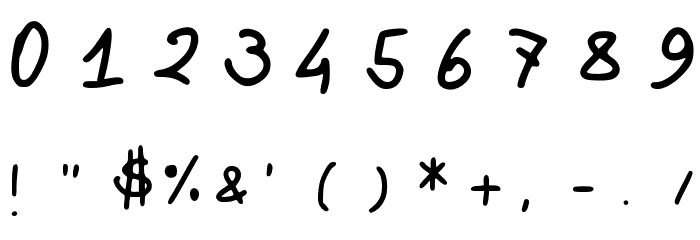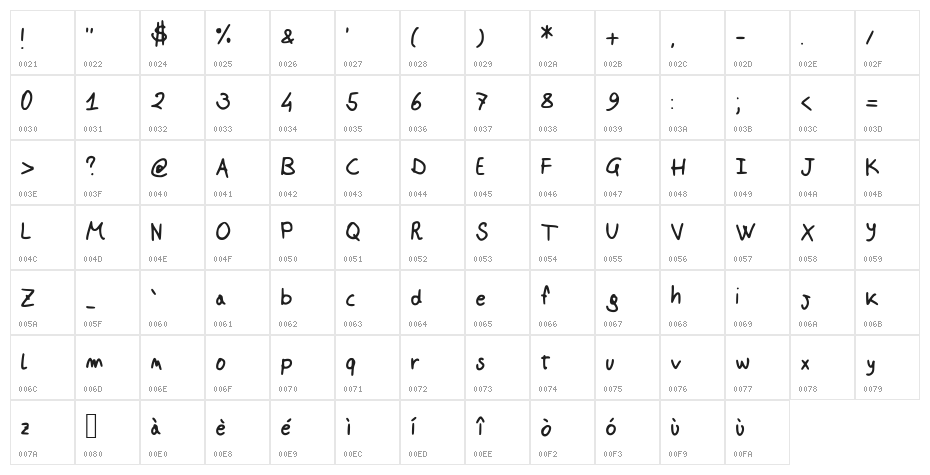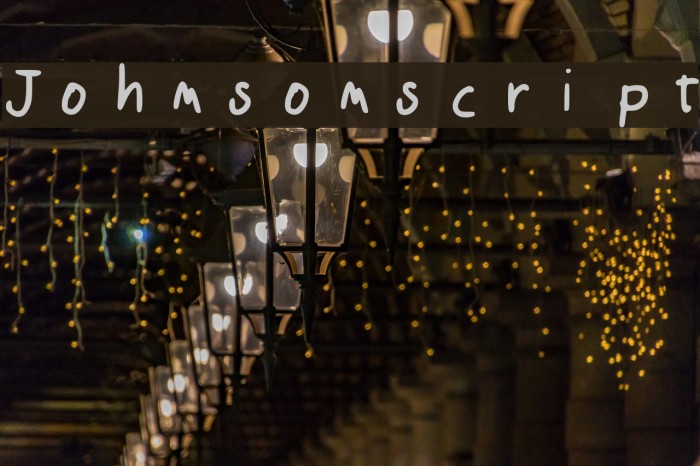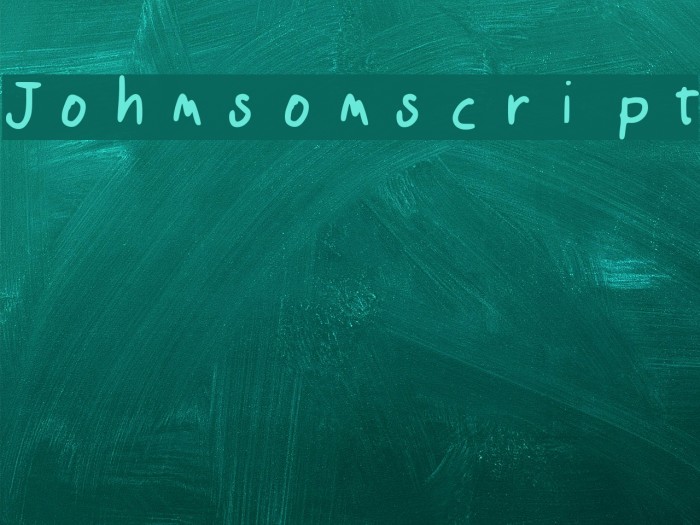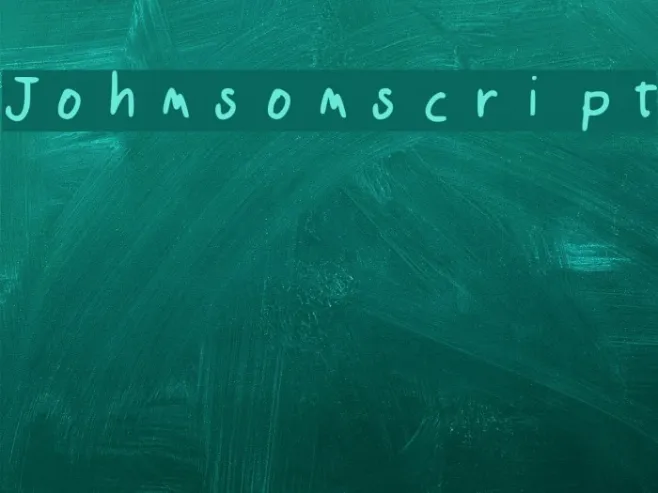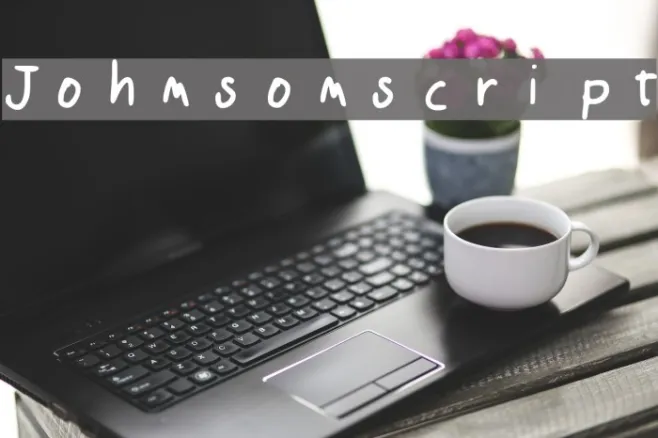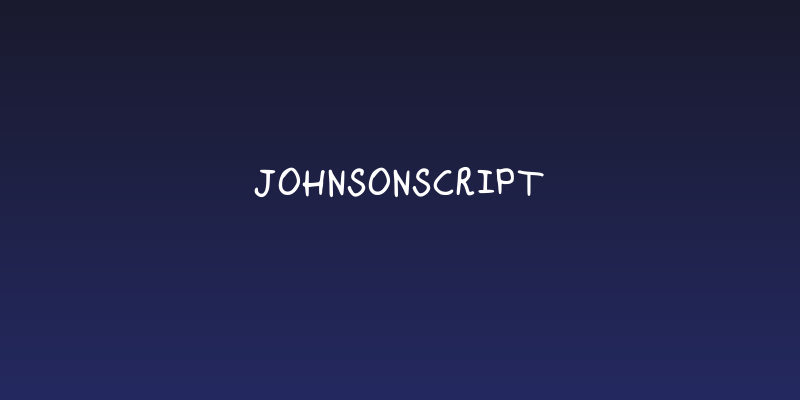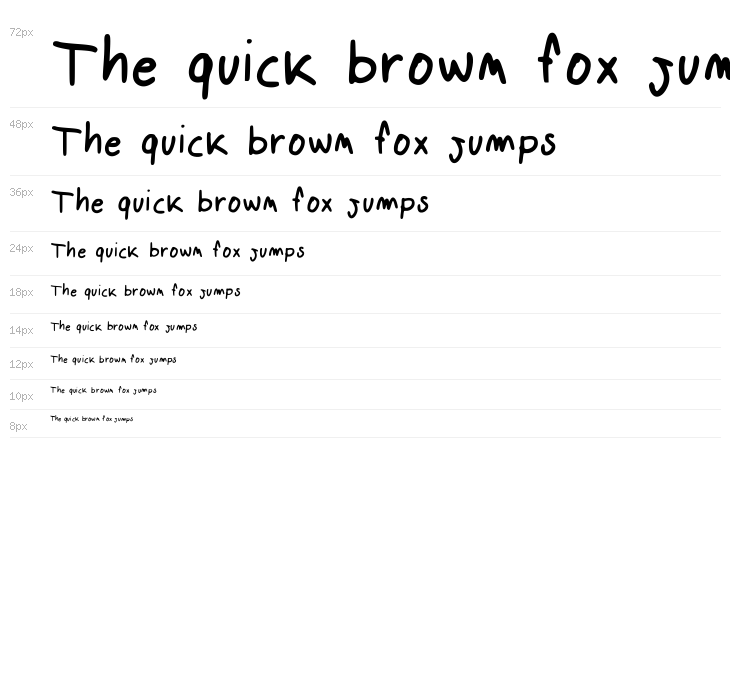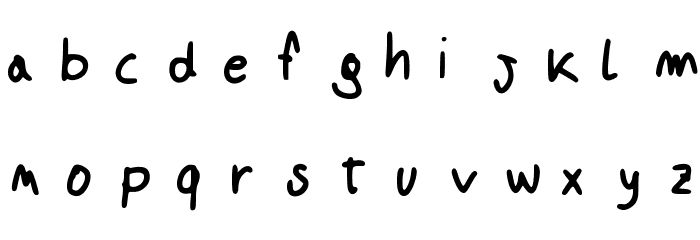
Johnsonscript Font
Johnsonscript Description
This font exudes a playful and casual handwritten style, characterized by its irregular strokes and organic flow. The letters have a natural, slightly uneven baseline, giving them a personal and approachable feel. The uppercase and lowercase letters maintain a consistent style, with rounded edges and a slight tilt that enhances the handwritten effect. Numbers and special characters are crafted with the same informal touch, ensuring a cohesive look across all text. This font is perfect for projects that require a friendly and informal tone, such as personal blogs, creative invitations, or children's books.
| Proposed Projects | Ideal for personal blogs, creative invitations, children's books, and casual branding. |